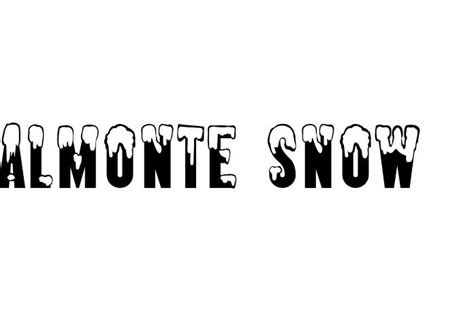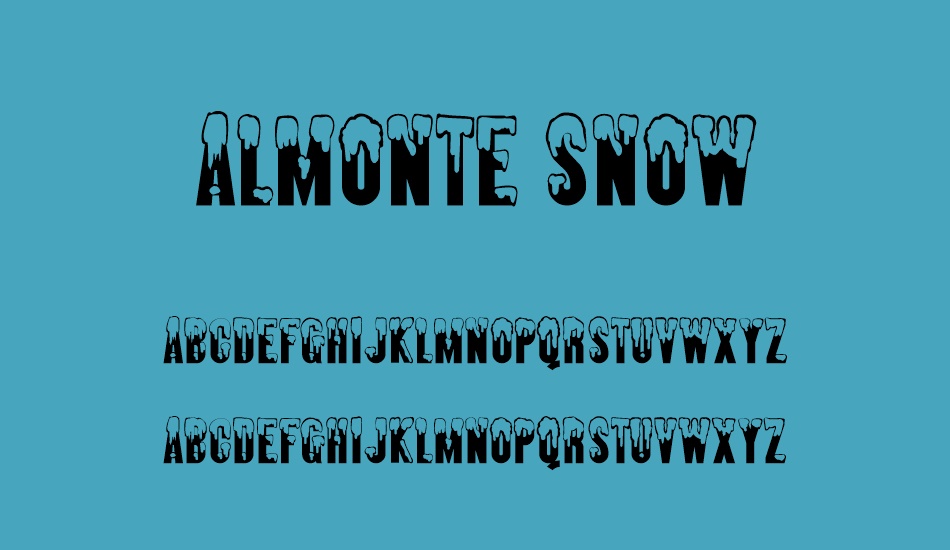
Almonte Snow Font . Web almonte snow font family : Web this wooden farm typeface has never seen an actual piece of wood, making it great for steampunk or other gonzo.